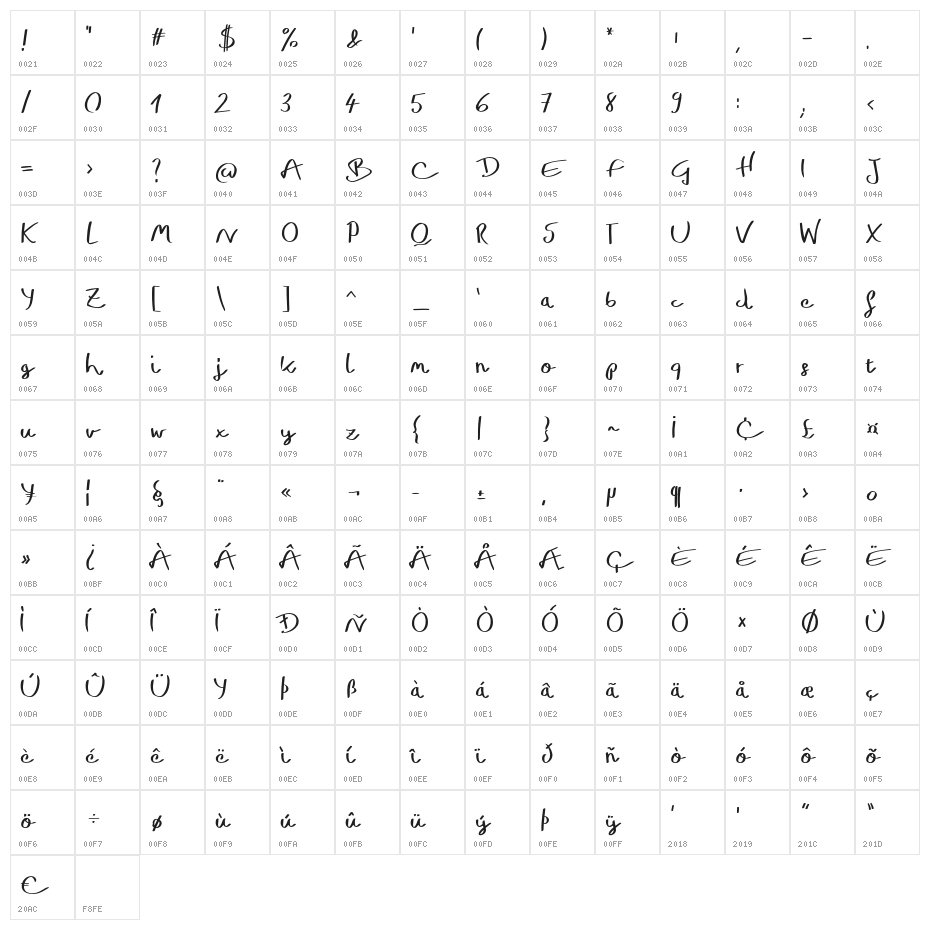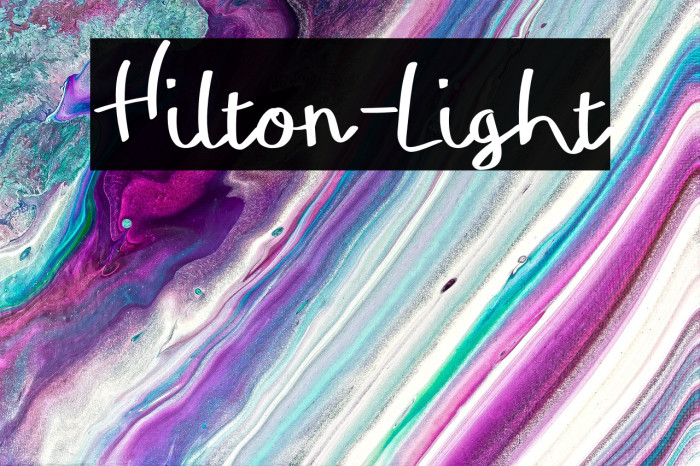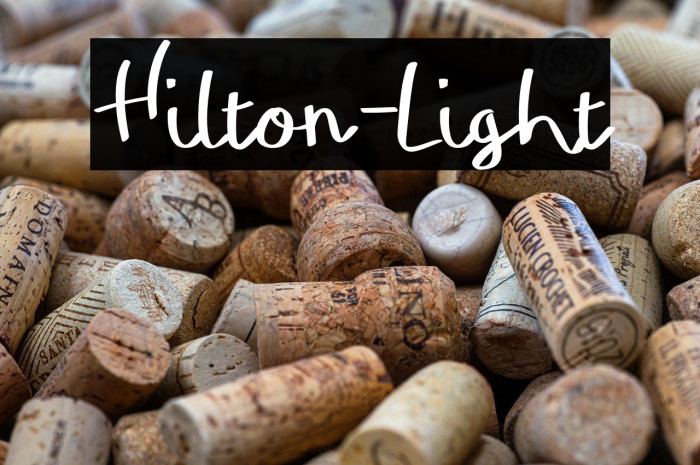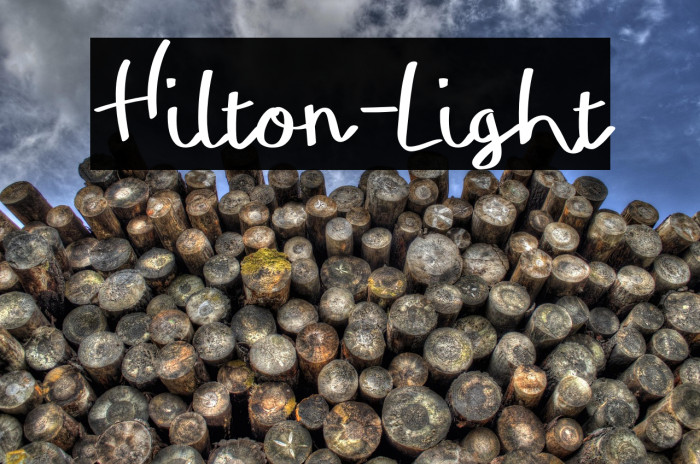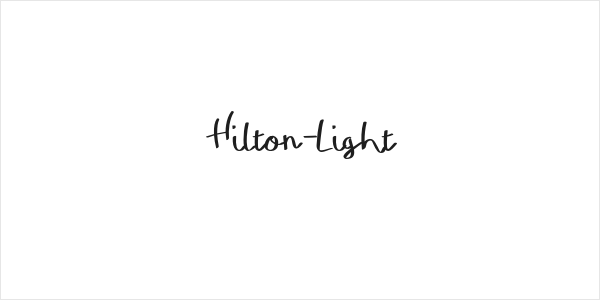
Hilton-Light Font
Hilton-Light Description
This font features a lively and flowing handwritten style, characterized by its smooth, cursive strokes and playful curves. The uppercase letters are bold and dynamic, with a slight slant that adds to their energetic appearance. The lowercase letters maintain a consistent rhythm, with rounded forms and a casual elegance. Numbers are clear and legible, matching the overall aesthetic with their rounded and slightly whimsical design. Special characters are integrated seamlessly, maintaining the font's cohesive style. This font exudes a sense of creativity and personal touch, making it ideal for projects that require a friendly and approachable feel.
| Proposed Projects | Ideal for greeting cards, personal branding, invitations, and creative projects requiring a personal touch. |